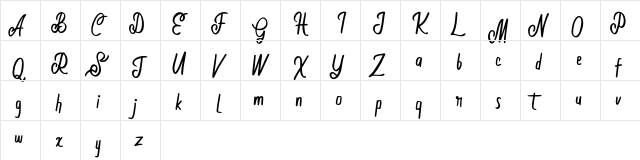
Moolland FREE Regular
| Foundry | Vunira Design |
| Designer | Vunira Design |
Design Context for Moolland FREE Typeface
Moolland FREE is a composed and adaptable typeface that performs quietly and consistently across a wide range of design contexts.